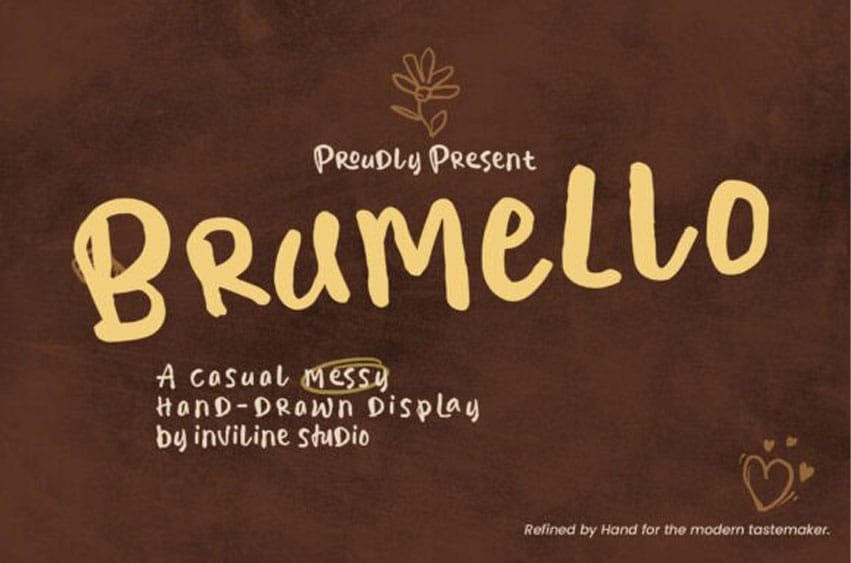
Brumello Font is an artisan-crafted Display Serif that embraces the beauty of understated luxury balanced with a personal touch. Straying from the confines of rigid geometric serifs, Brumello welcomes subtle hand-drawn irregularities that lend its warm, inviting yet decidedly upscale character.
Fashioned with inspiration drawn from custom stationery and high-end fashion houses, this font finds its remarkable potential in grand-scale uses such as prominently featured mastheads, brand identities, and high-end social media graphics. Brumello is the epitome of a font designed for brands that appreciate the charm of a handcrafted aesthetic, without compromising even a fraction of refinement.